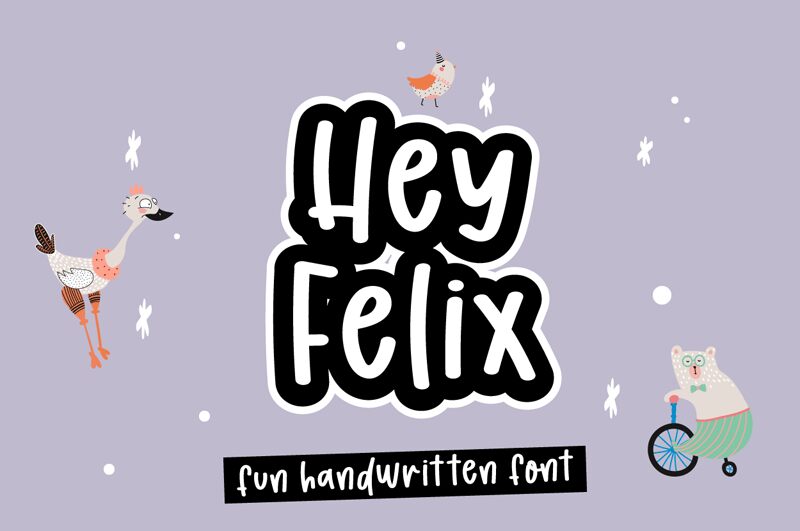
Hey Felix
Hey Felix by Letter Art Studio is a fun and light handwritten font perfect for creative projects. Use it to add a unique, personal touch to invitations, flyers, posters and more!